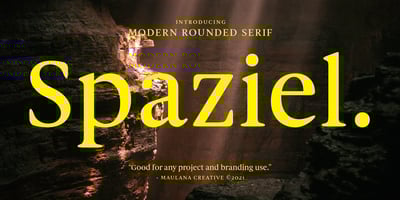
Spaziel Serif Round Font Family was designed by Gilang Maulana and published by Maulana Creative. Spaziel Serif Round contains 1 styles and family package options. Spaziel Round serif is a modern serif font. With regular round stroke, and fun character. To give you an extra creative work. Spaziel font support multilingual more than 100+ language. This font is good for logo design, Social media, Movie Titles, Books Titles, a short text even a long text letter and good for your secondary text font with Script typeface. Make a stunning work with Spaziel font. Cheers, MaulanaCreative